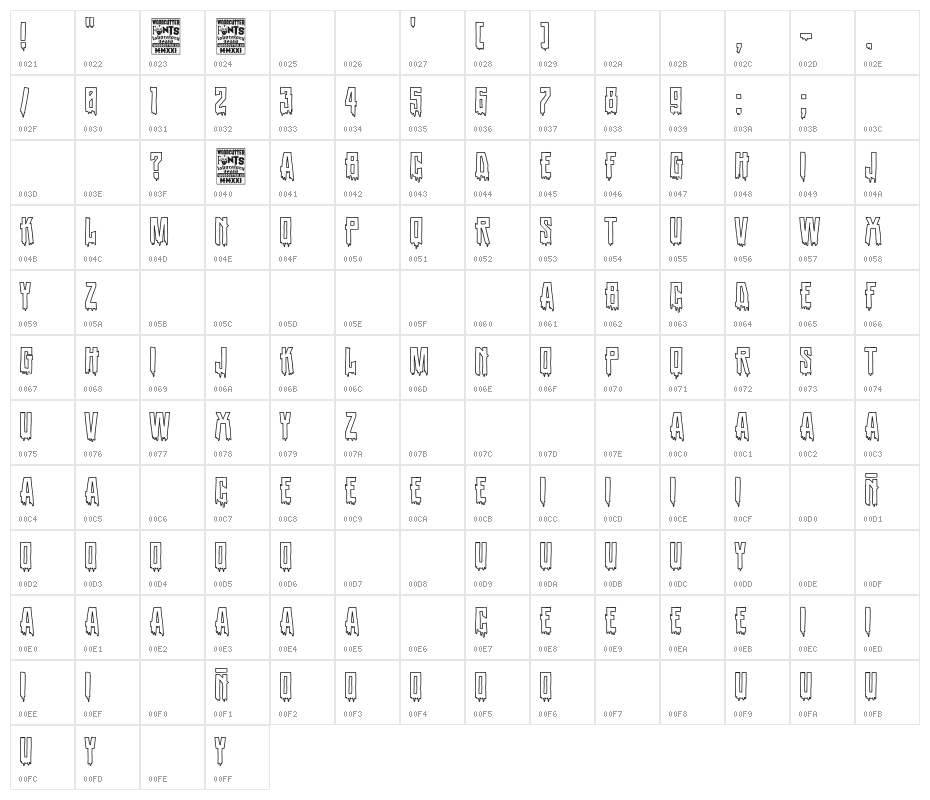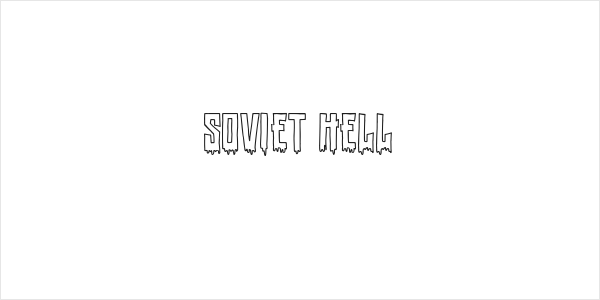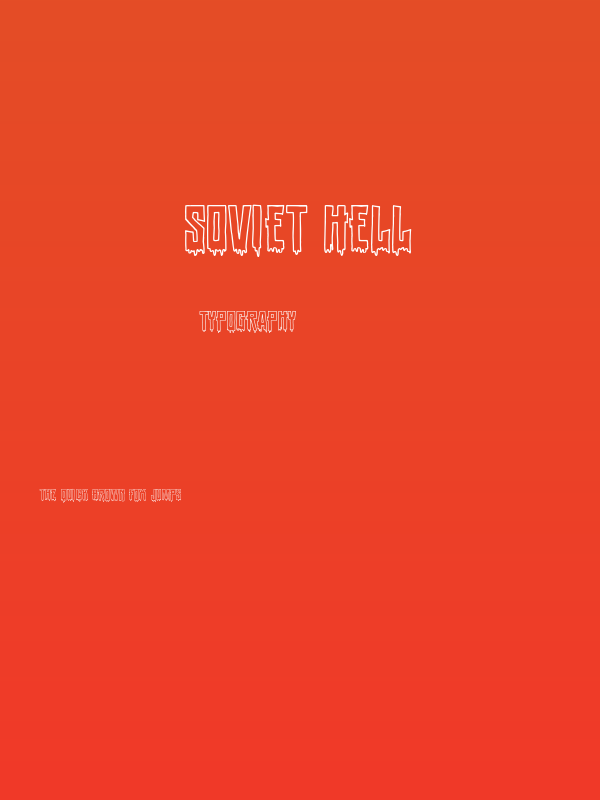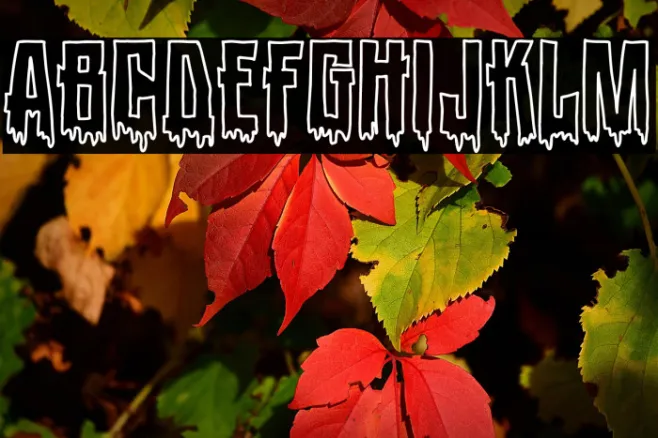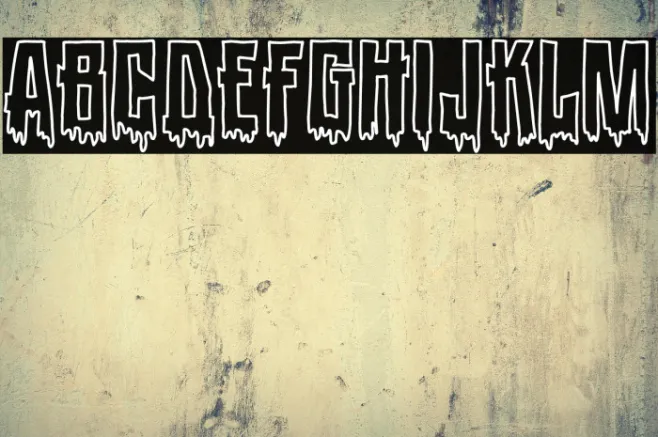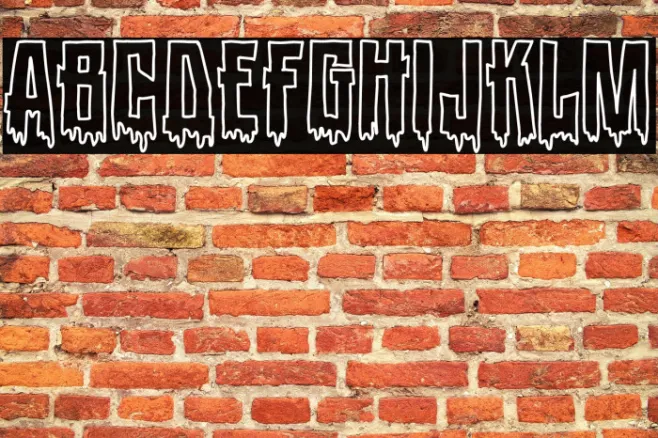
Soviet Hell Font
Soviet Hell Description
This font features a bold, dripping effect that gives it a distinctive, eerie appearance. The uppercase and lowercase letters are designed with sharp, angular edges and a unique outline that resembles melting or dripping liquid. The numbers and special characters maintain this consistent style, adding to the overall cohesive look. This font is highly decorative and captures attention with its bold and unconventional design, making it ideal for projects that require a dramatic or horror-themed aesthetic.
| Proposed Projects | Ideal for Halloween-themed designs, horror movie posters, spooky event invitations, and graphic novels. |